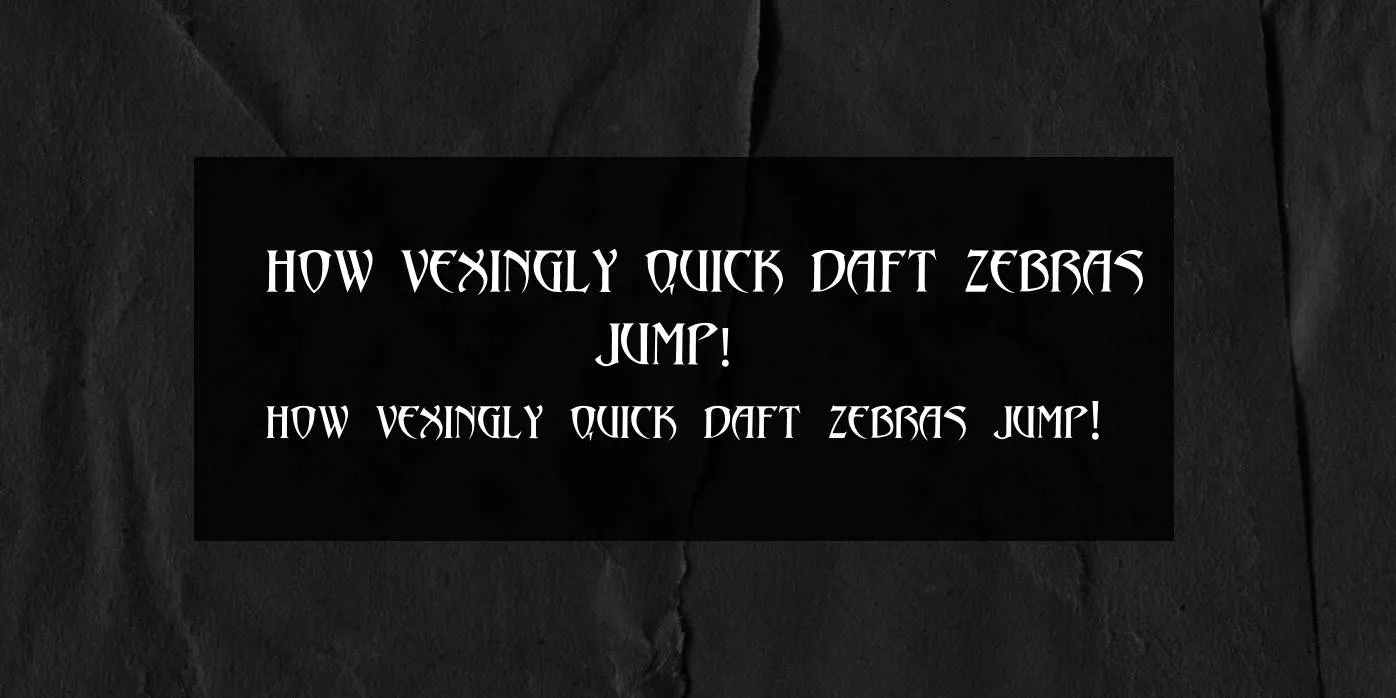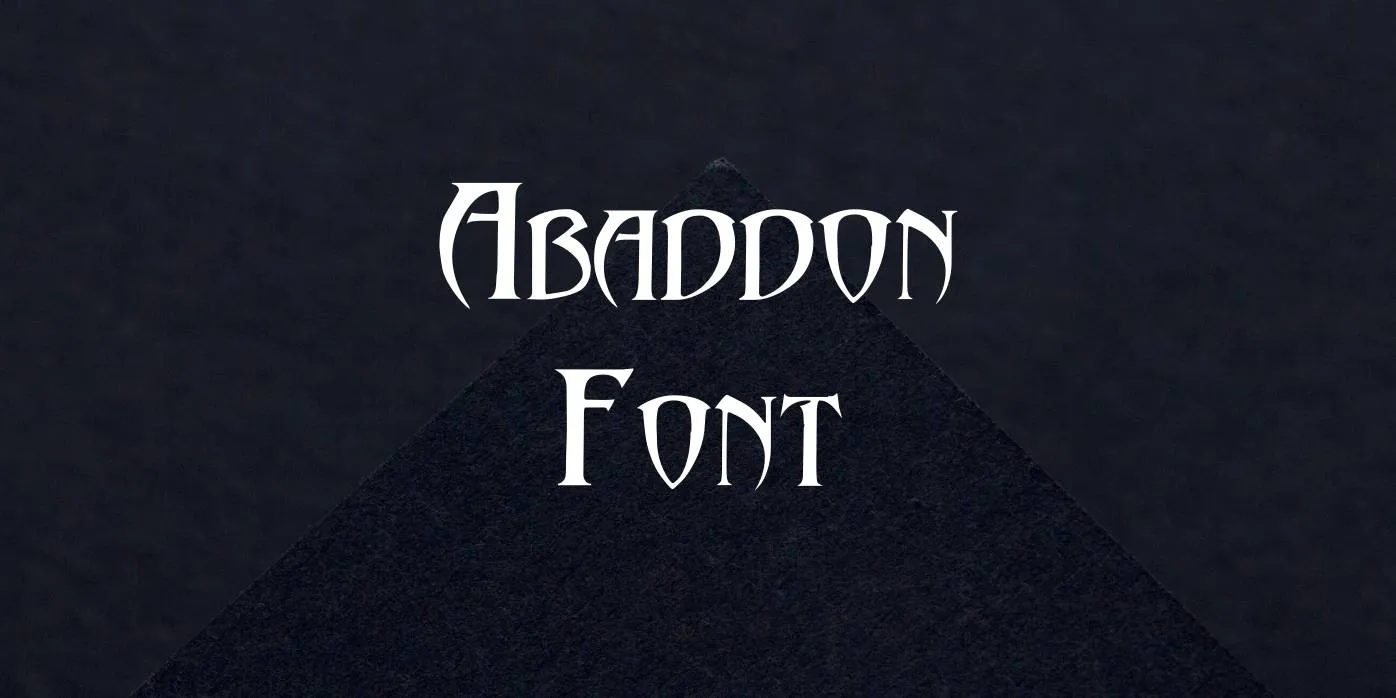
Abaddon Font
Here, we introduce a famous font known as Abaddon Font. This attractive typeface belongs to the gothic family. This typeface was designed by The Scriptorium. The first time this typeface was seen was in 2009.
This font has a unique look that really stands out. The letters are sharp and angular, which gives them a very modern look. This is a great choice for headlines and titles. This family has neat and clean textures that make it perfect for any display use.
The similar font which is olde english font is perfect for different designs. If you’re looking for something different, then Abaddon Font is worth checking out. This typeface includes styles and characters like no other. With its unique look, it’s sure to make your project stand out from the rest.